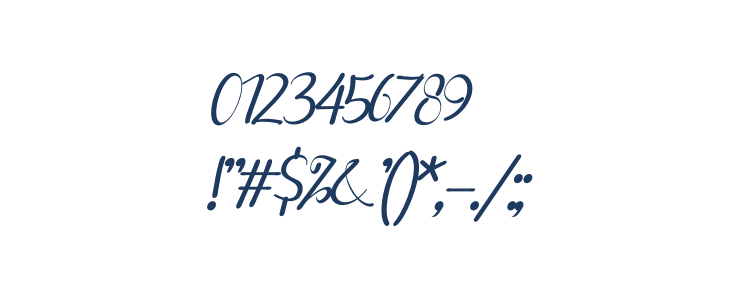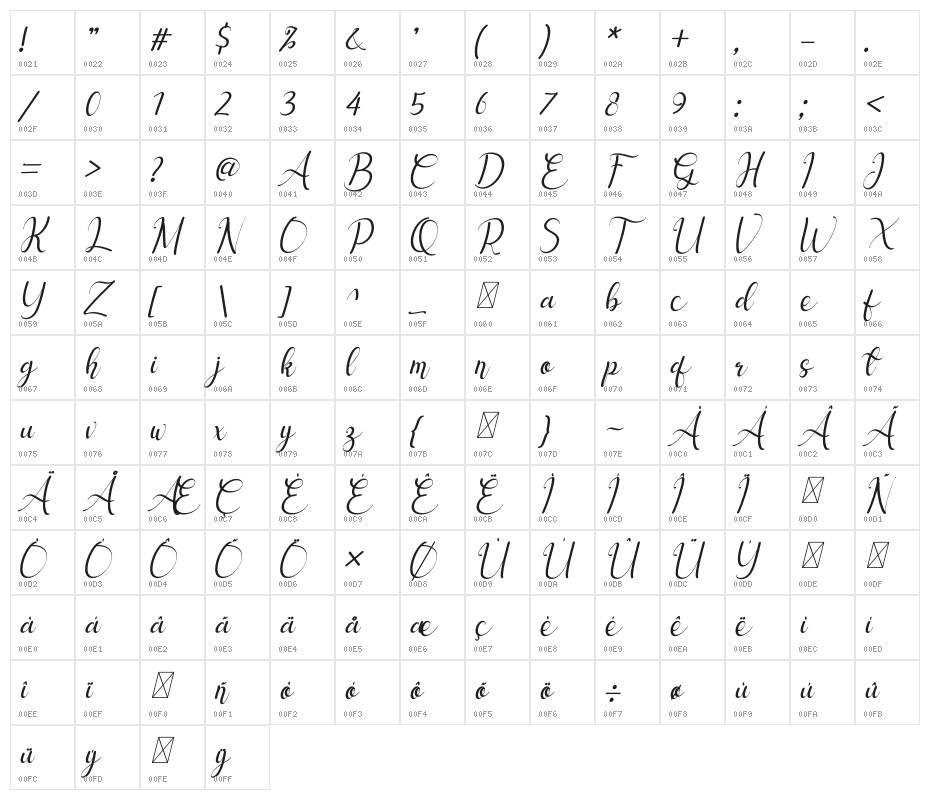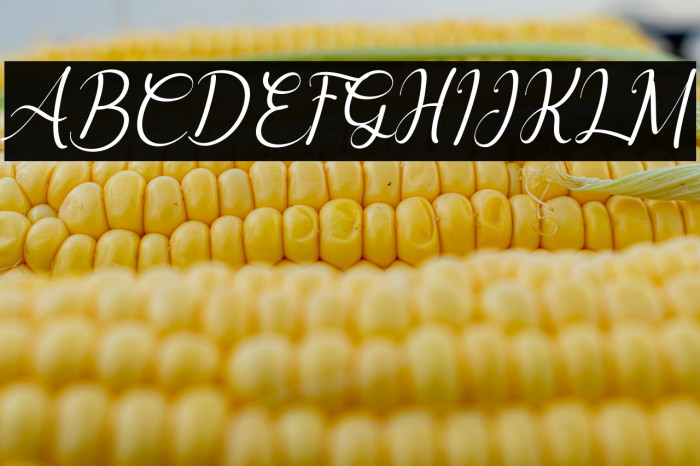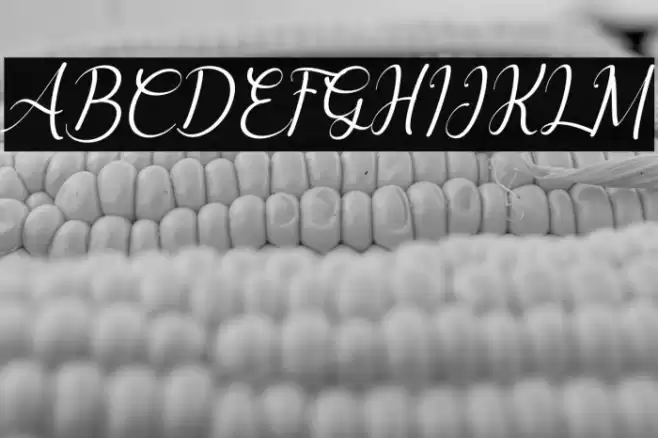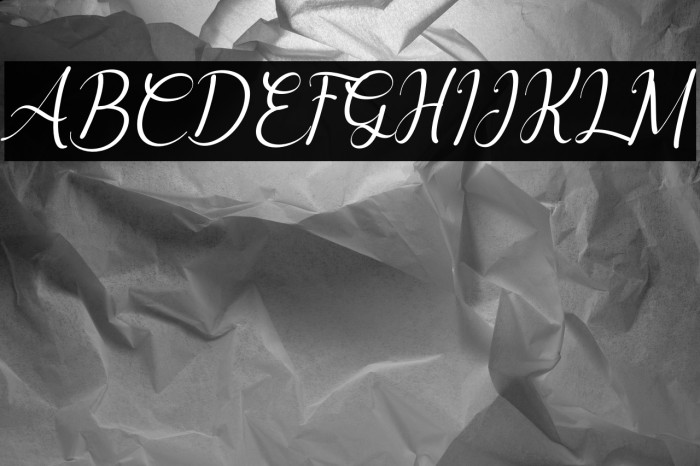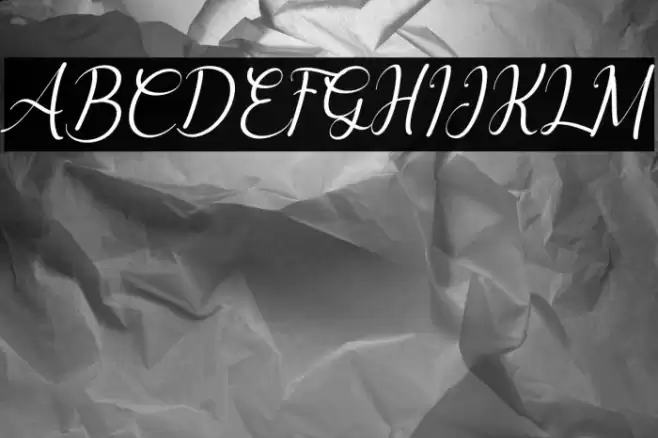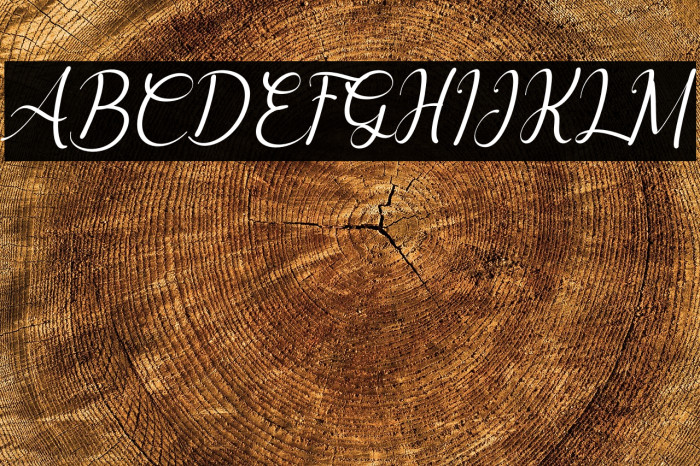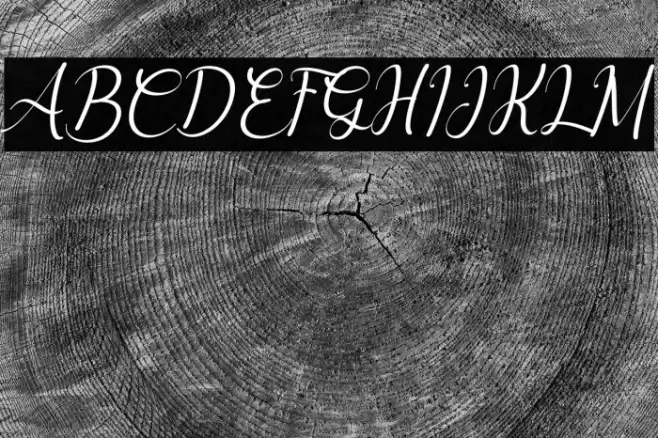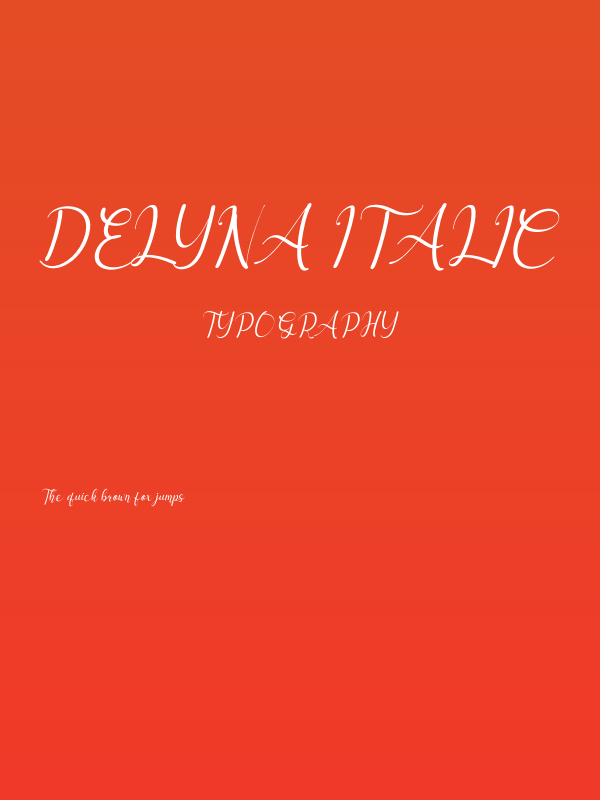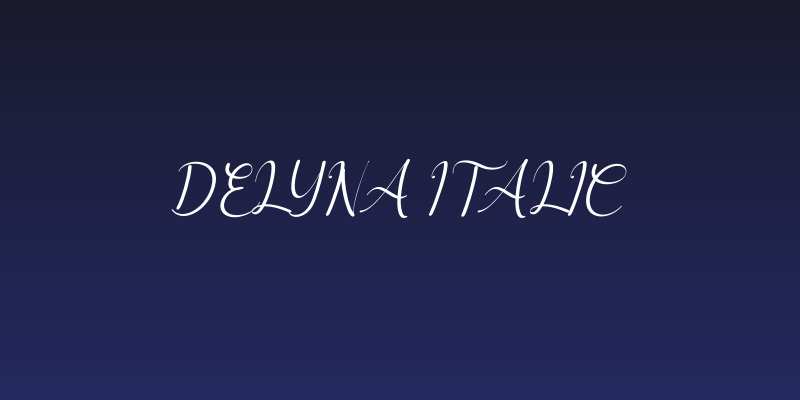
Delyna Italic Font
Delyna Italic Description
This elegant script font features a flowing, cursive style with graceful, sweeping curves and a sophisticated flair. The characters are delicately connected, creating a seamless and fluid appearance. The uppercase letters are slightly more ornate, with extended flourishes that add a touch of drama. The lowercase letters maintain a consistent rhythm, enhancing readability while preserving the font's artistic nature. The numerals and special characters are designed to complement the overall aesthetic, ensuring a cohesive look across all text elements.